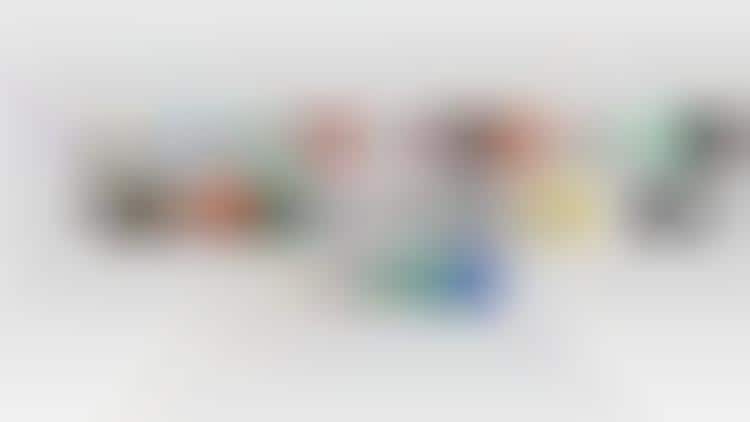
The Type to Design Creates Text Using Letter Posts from Instagram
Designers and web users often rely on font generators to create appealing typography to use in creative digital projects, and the Type to Design offers an innovative solution that incorporates social media. The online typography site creatively uses illustrative submissions of letters posted onto Instagram to create a dynamic alphabet made from collaged and unique letters.
Type to Design is a platform put together by creatives Rafa Goicoechea and Nina Sans creatively offers a modern and digital take on collaged art by offering users to create text using collaged letters submitted via Instagram. Each letter is uniquely created by the submitter and strung together in the system to form an inconsistent alphabet design. Some of the letters are abstract and made from unconventional objects such as tentacles, paint or even people.